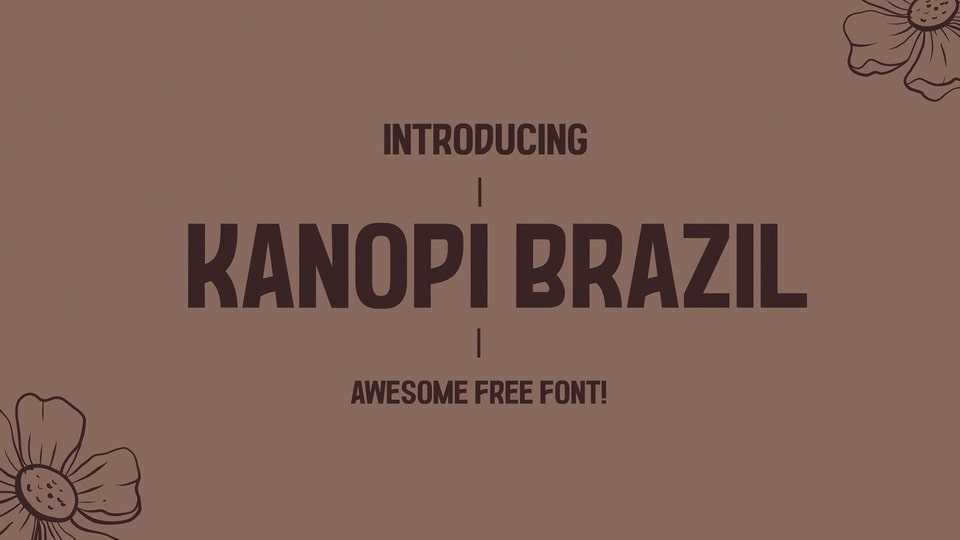
Download Kanopi Brazil font, a condensed sans serif typeface that combines bold geometry with smooth curves. Kanopi Brazil font is perfect for headlines, posters and display use.
Designer: Raxel Studio